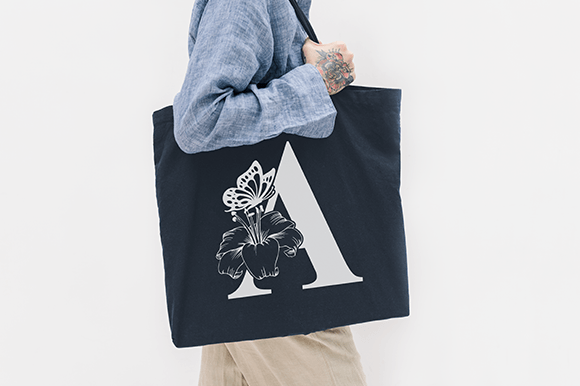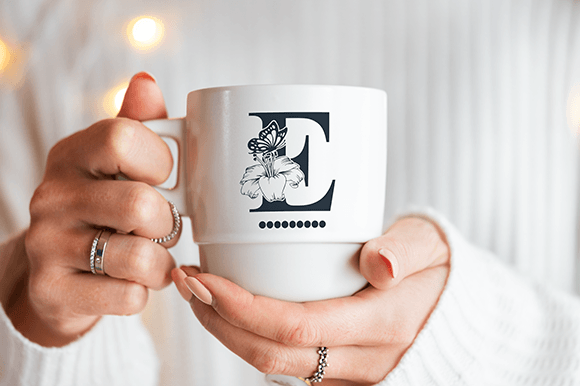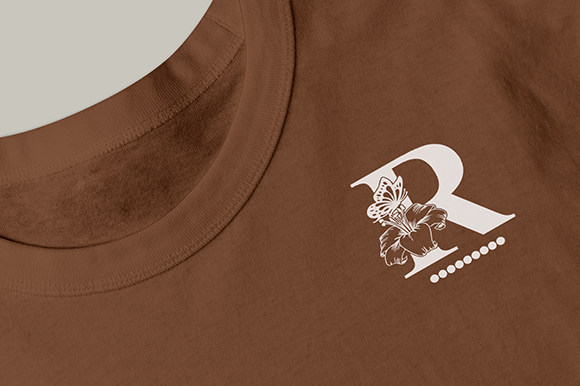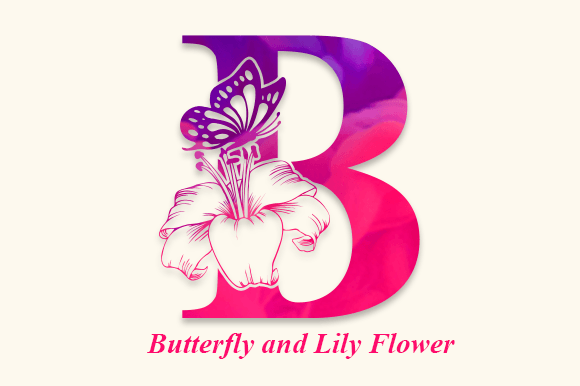
Butterfly and Lily Flower is an elegant decorative font, featuring lovely ornaments.
Fall in love with its authentic feel and use it to create gorgeous wedding invitations, beautiful stationary art, eye-catching social media posts, and cute greeting cards .
Butterfly and Lily Flower Font offers exceptional quality and versatility, making it a valuable addition to your design toolkit. Whether you’re creating for personal projects or commercial use, Butterfly and Lily Flower Font delivers professional results.